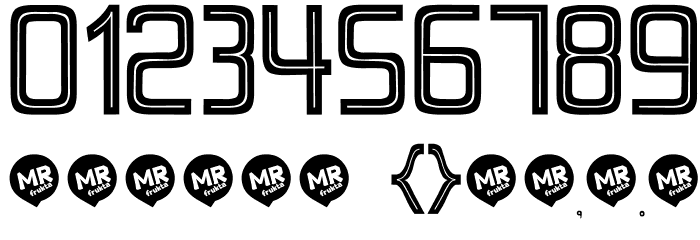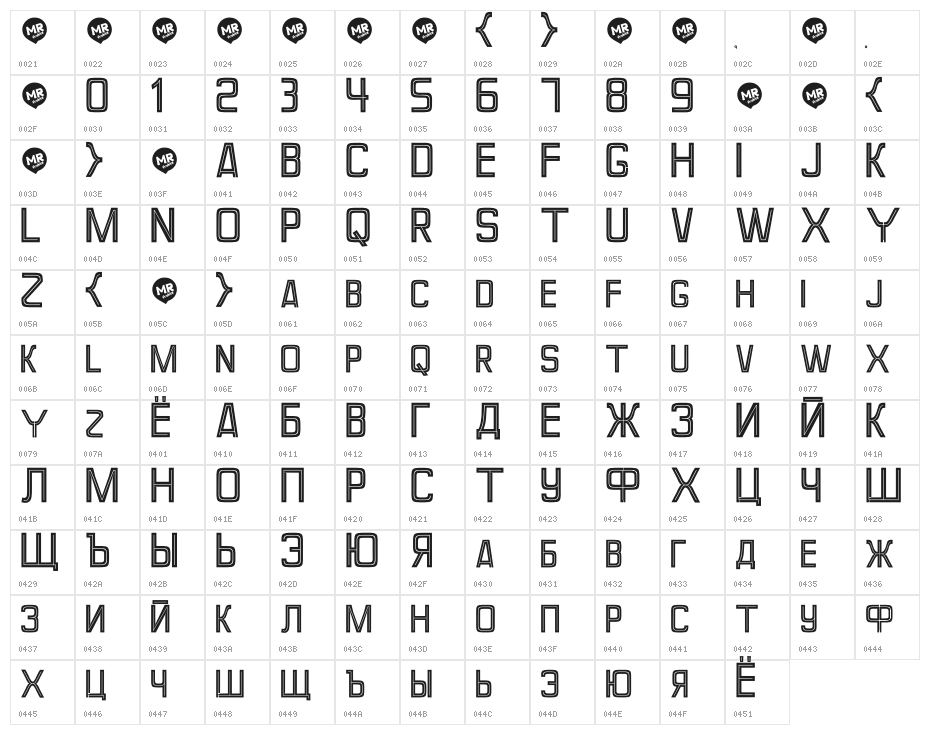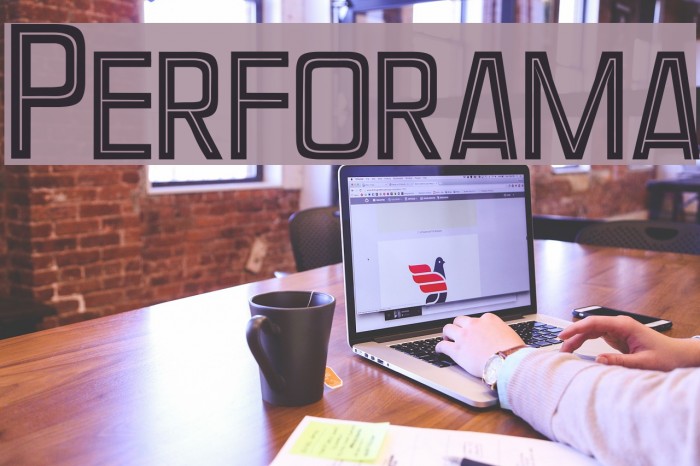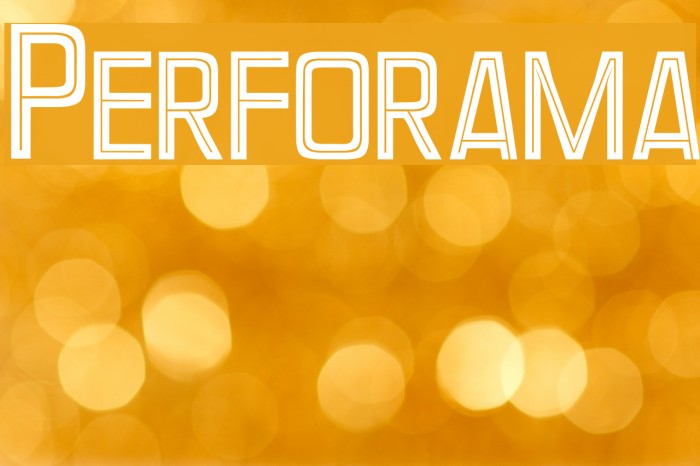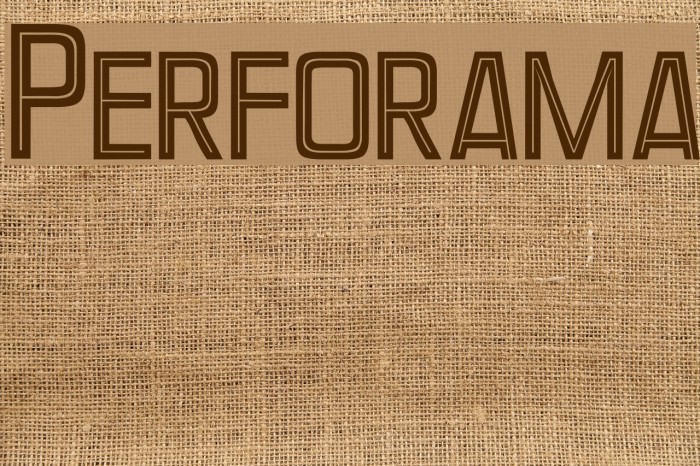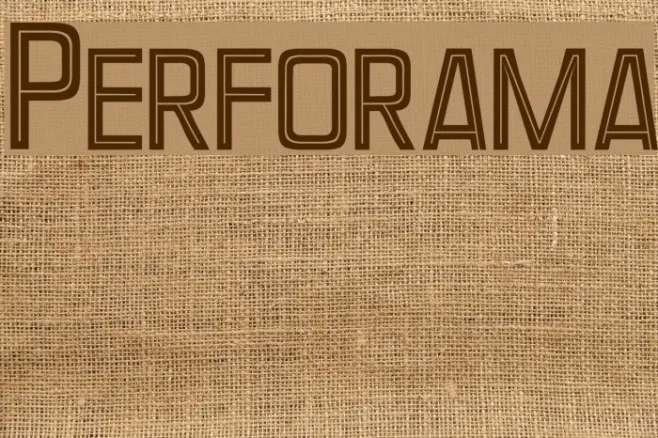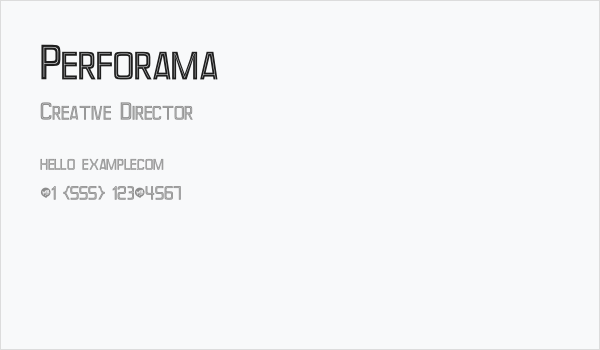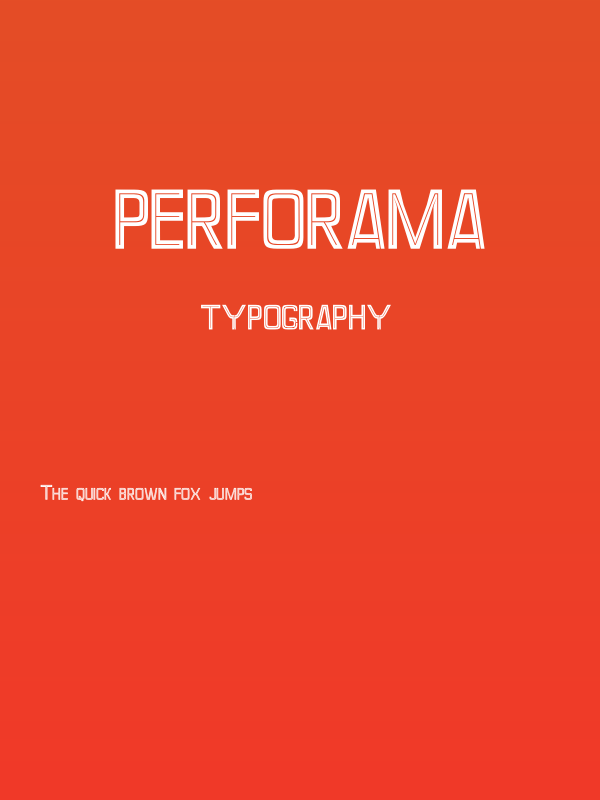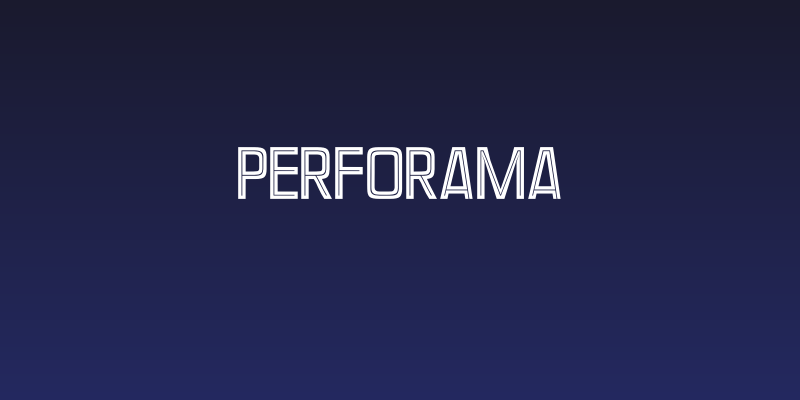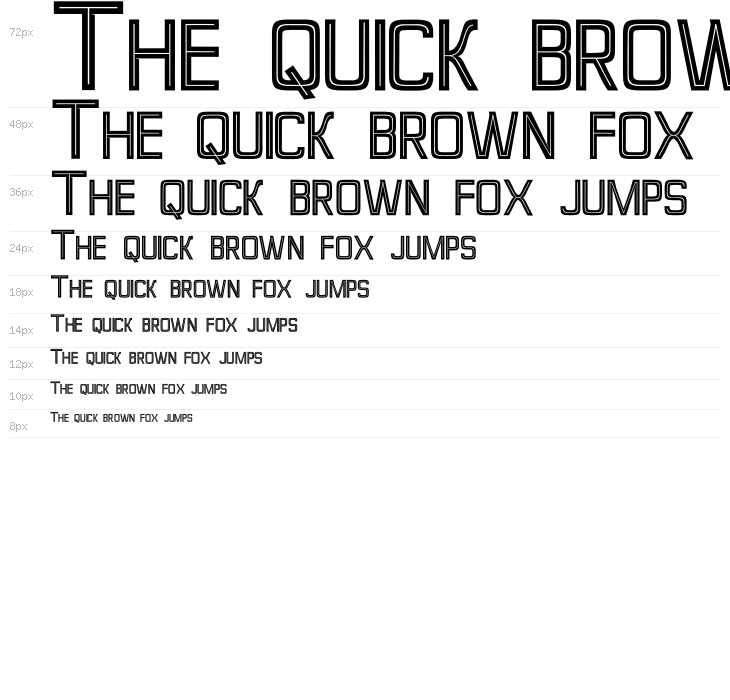
Perforama Font
Perforama Description
This font features a bold, geometric design with a strong presence. The characters are outlined, creating a hollow effect that adds depth and dimension. The uppercase letters are uniform in height, with sharp angles and clean lines that convey a modern and industrial aesthetic. The numerals follow the same style, maintaining consistency across the set. The font's unique style makes it stand out, suitable for attention-grabbing headlines or logos. Its structured form and open spaces within each character give it a futuristic and innovative feel.
| Proposed Projects | Ideal for branding, logos, headlines, posters, and any project requiring a modern, standout typeface. |